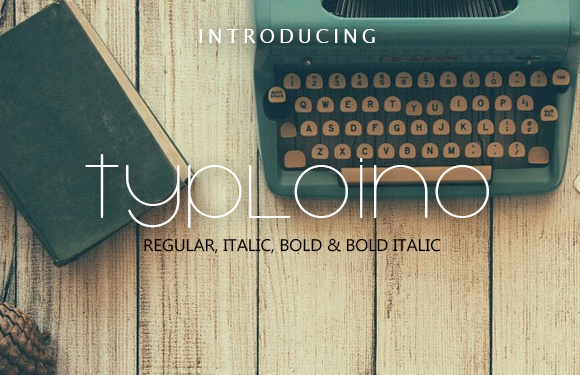
Introducing Typolino, a font that captures the essence of modernism, with its clean and sharp avant-garde design. A brainchild of vladimirnikolic, Typolino is a sans serif font that exudes sophistication and elegance in every letterform. Available in four distinct variations, Typolino offers a range of styles to suit any design project, from posters and banners to t-shirts and websites.
Step into a world of creative possibilities with Typolino. Its crisp lines and minimalist aesthetic create designs that resonate with a contemporary audience. Whether you're a seasoned designer or just starting, Typolino's user-friendly nature ensures a seamless experience, allowing you to focus on crafting impactful designs that leave a lasting impression.
With Typolino, you'll discover a font that seamlessly blends form and function. Its versatility shines in both digital and print media, making it an indispensable tool for designers, marketers, and creatives alike. Let Typolino's avant-garde charm elevate your designs to new heights, capturing attention and sparking conversations.
Join the creative revolution with Typolino, a font that embodies the spirit of innovation. Its striking presence commands attention, while its versatility empowers you to create designs that resonate with your audience. Experience the Typolino difference today and unlock a world of limitless creative possibilities.